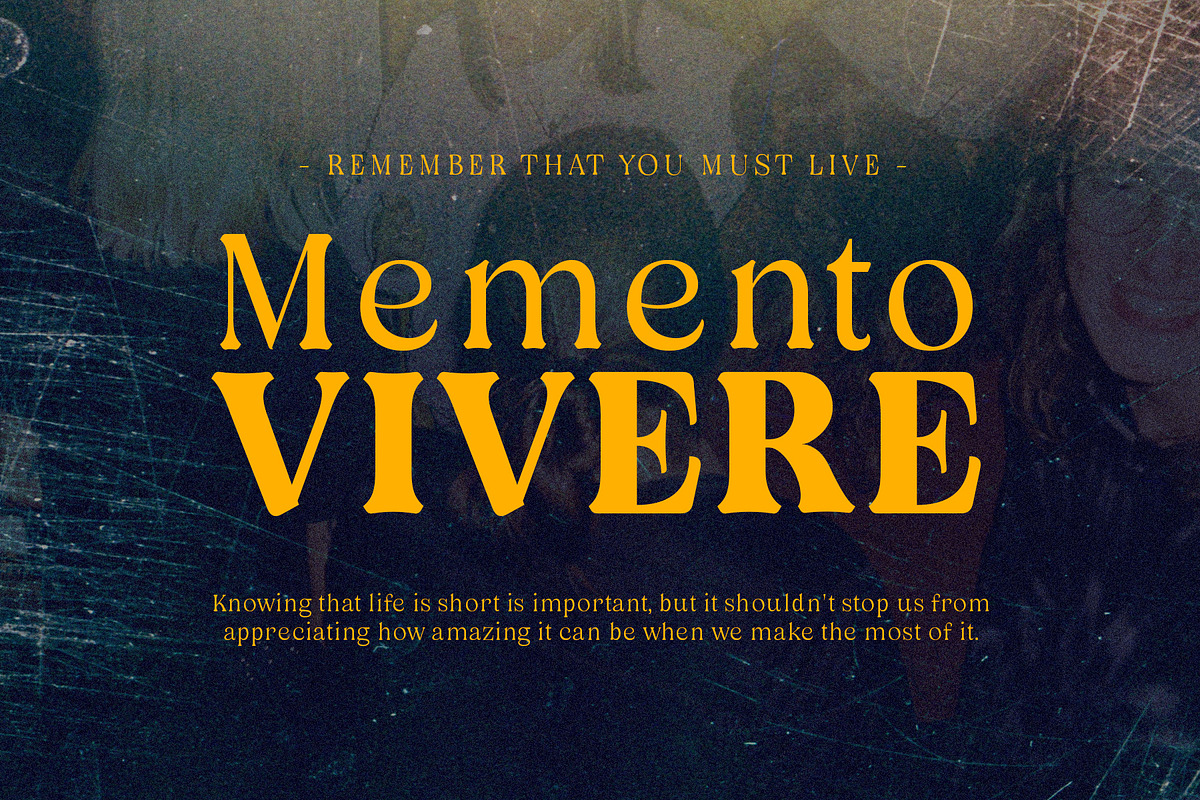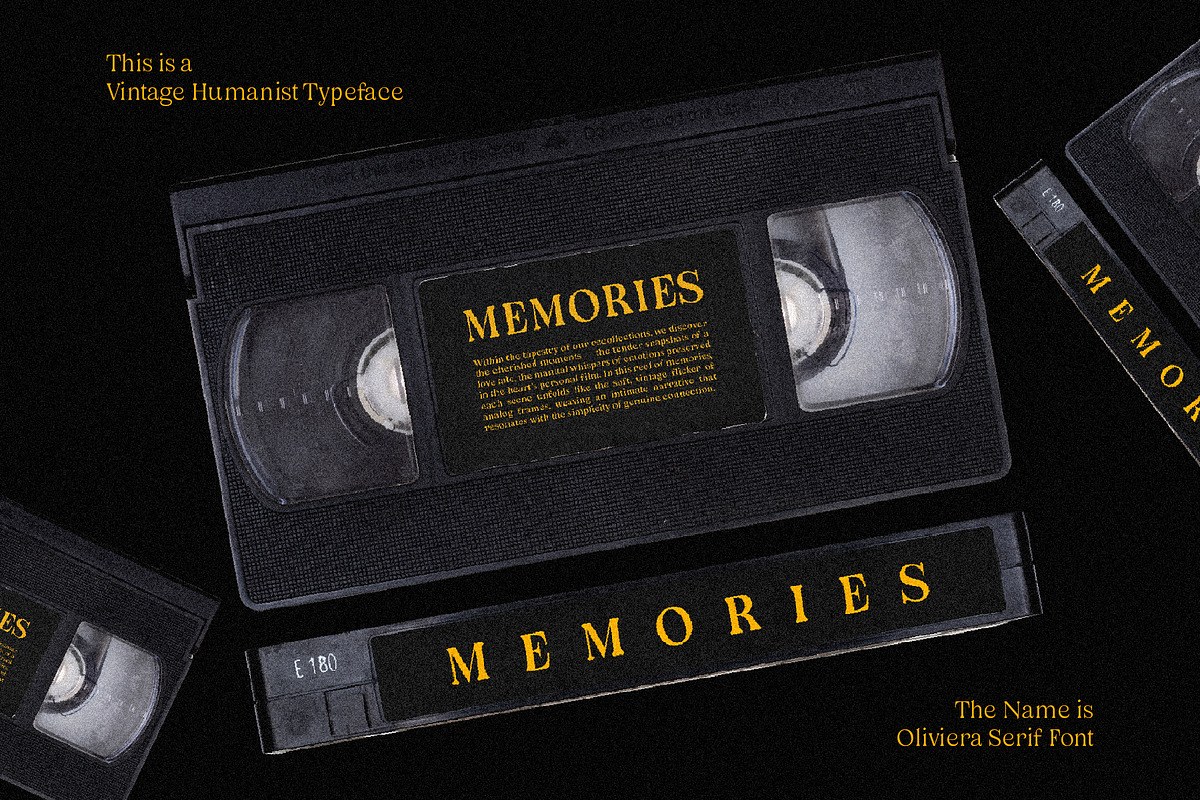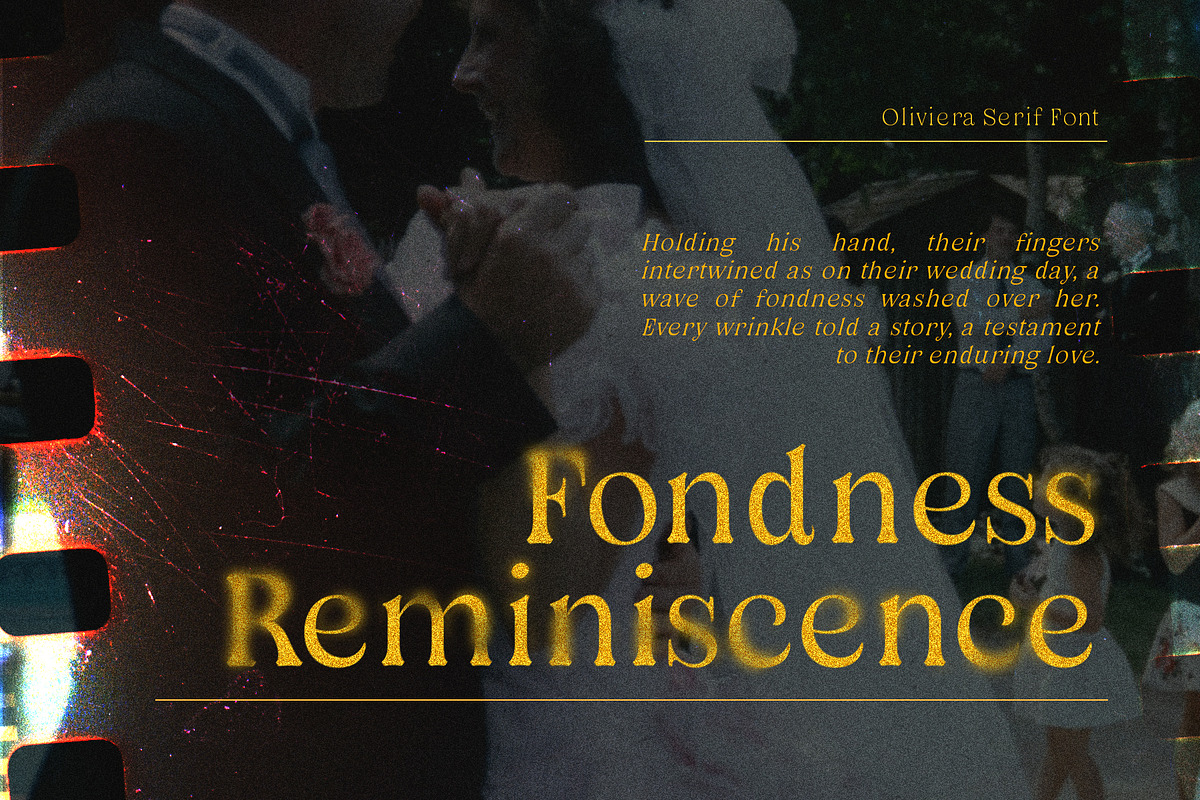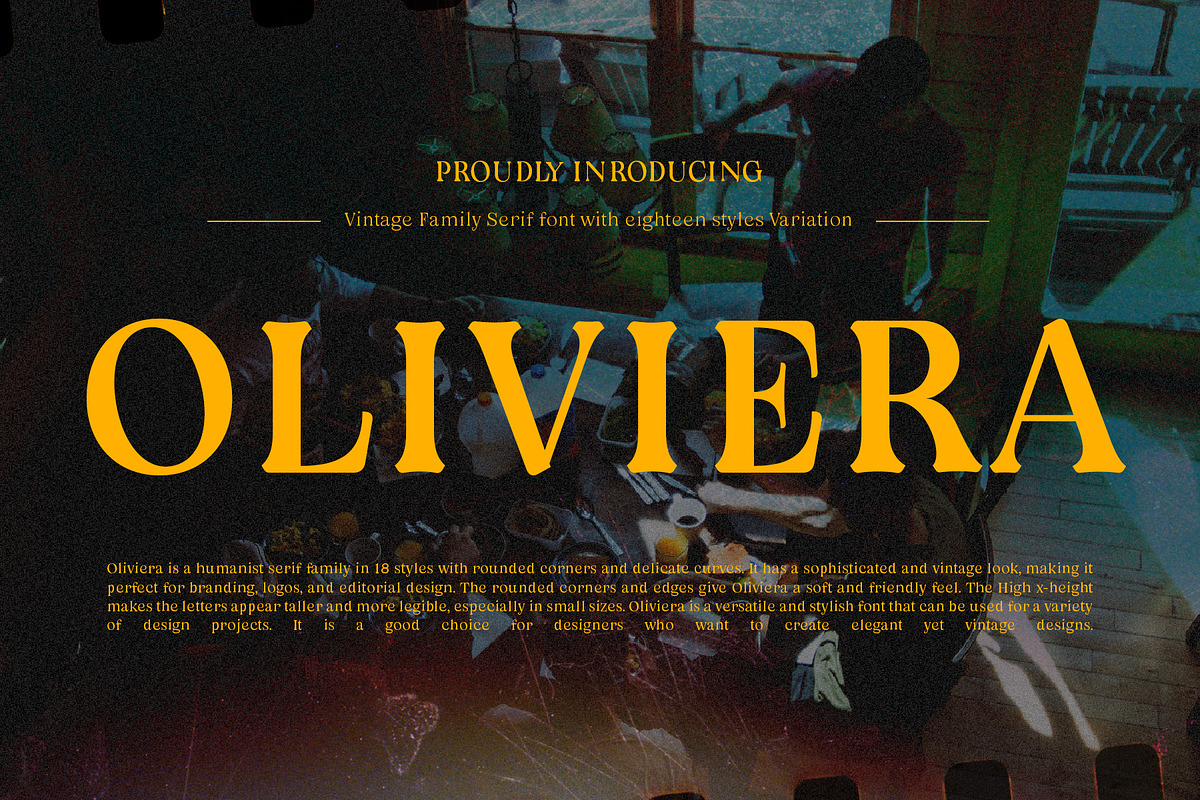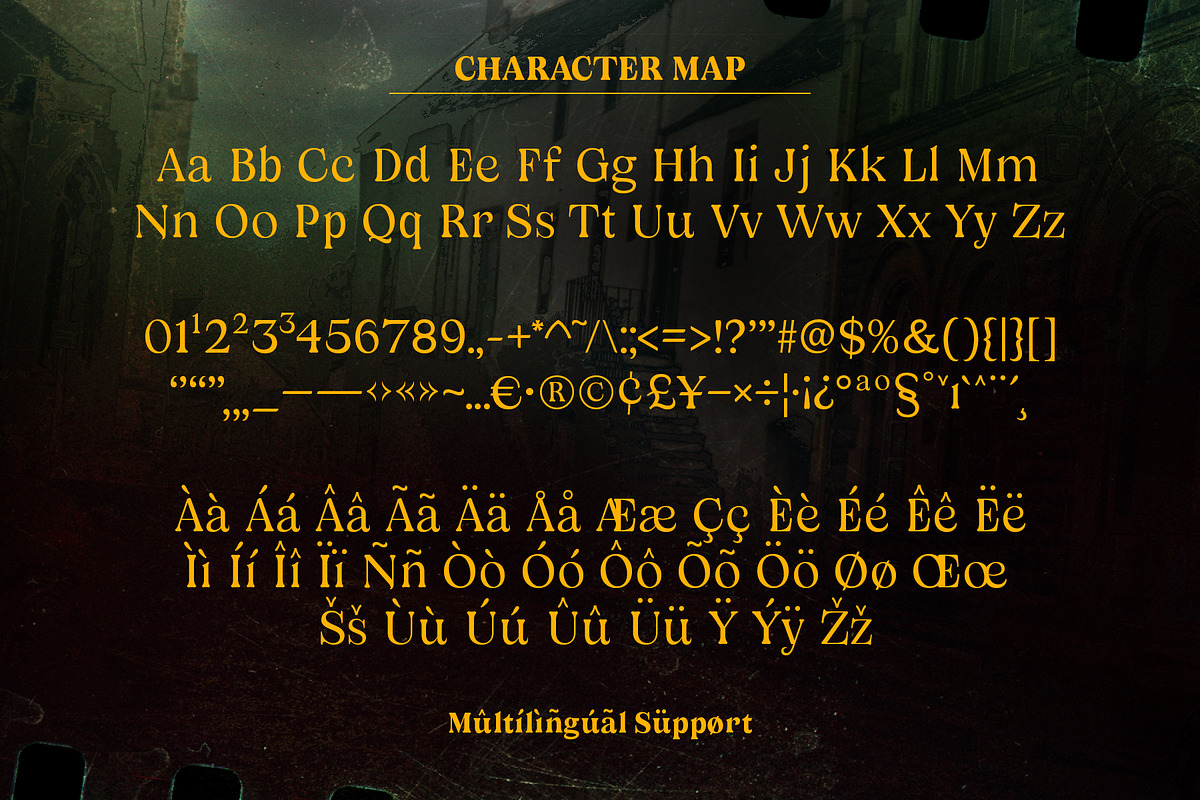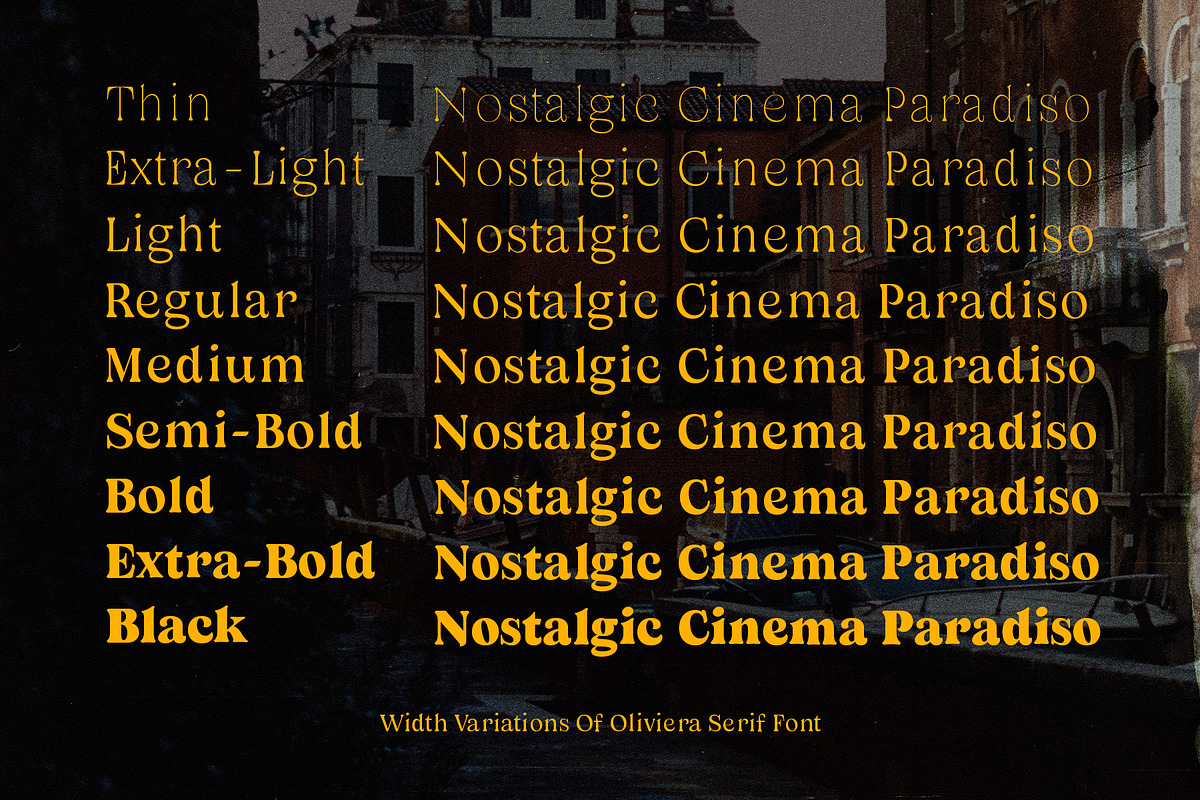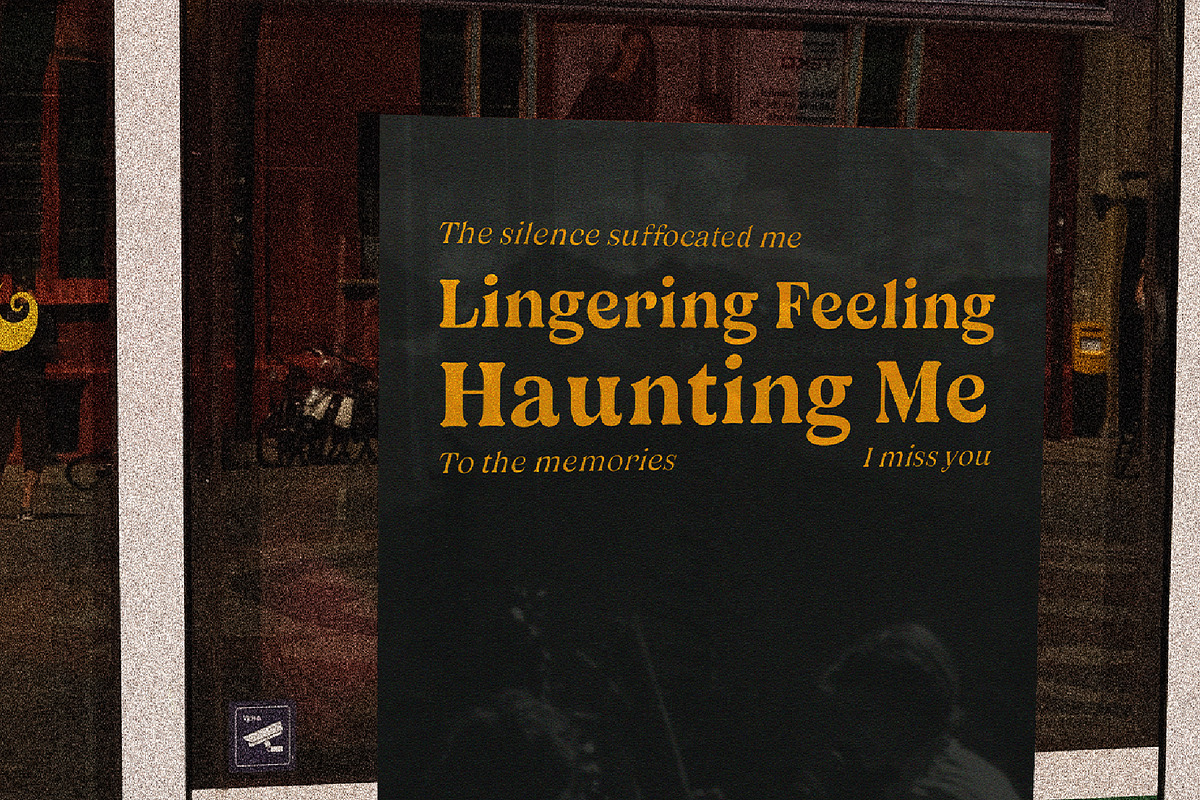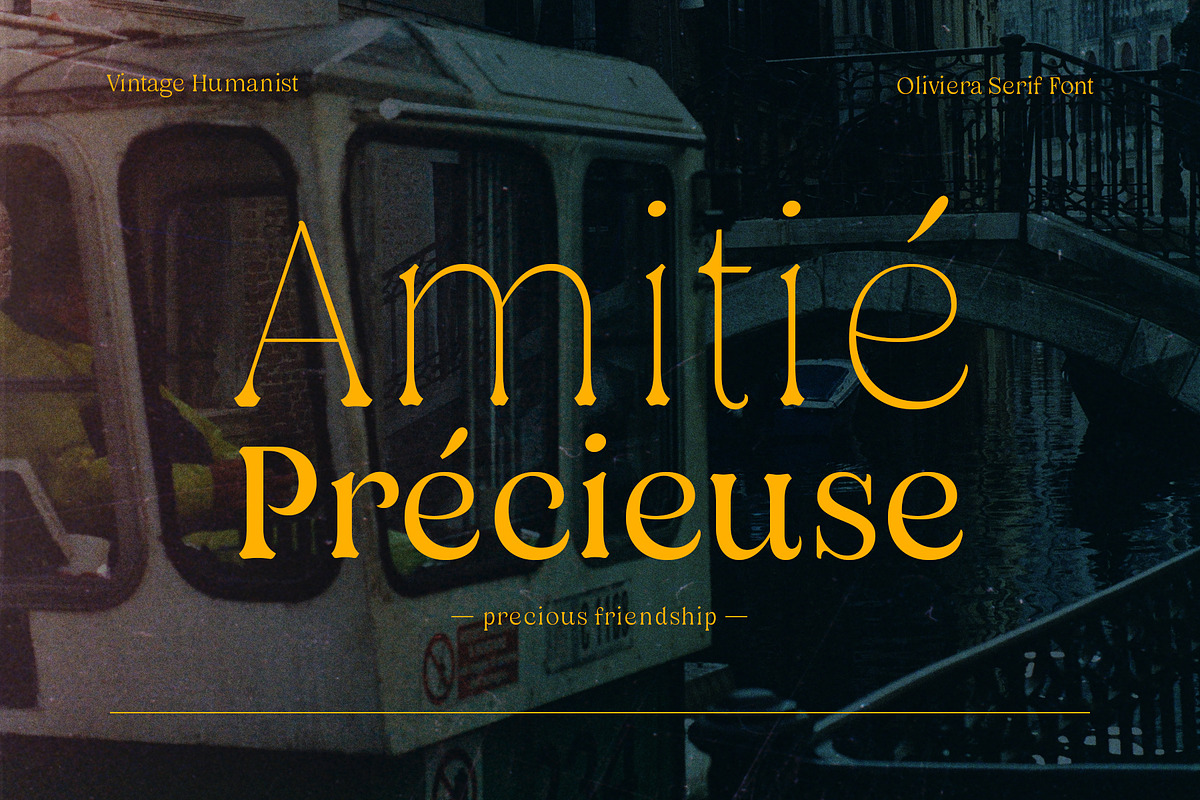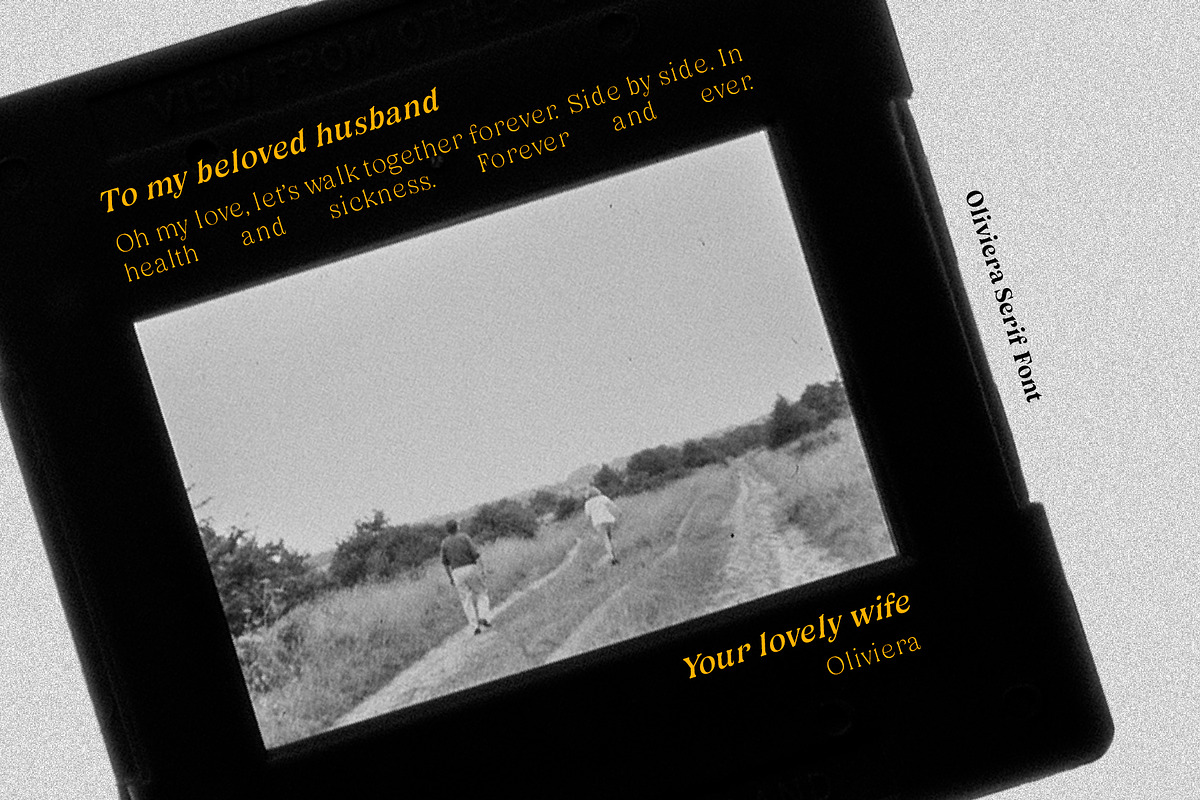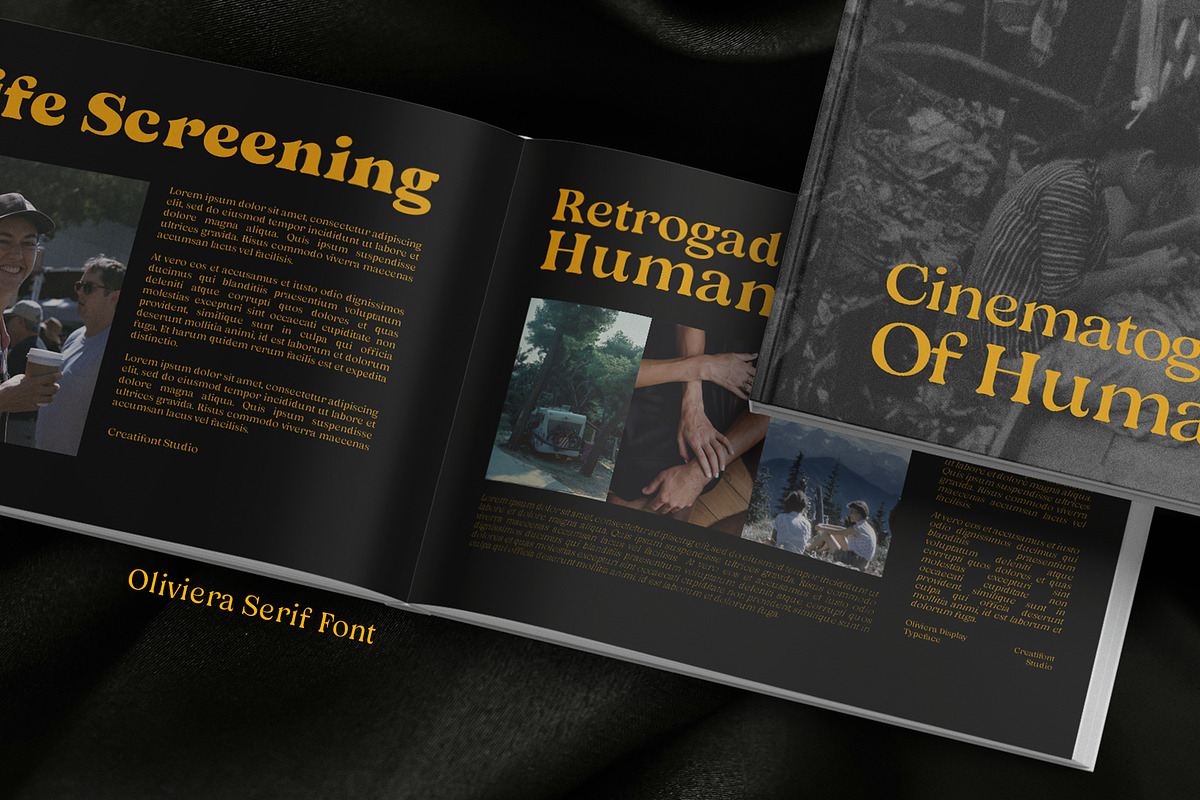
CF Oliviera - Elegant Vintage Serif
Oliviera - is a humanist serif family in 18 styles with rounded corners and delicate curves. It has a sophisticated and vintage look, making it perfect for branding, logos, and editorial design. The rounded corners and edges give Oliviera a soft and friendly feel. The High x-height makes the letters appear taller and more legible, especially in small sizes. Oliviera is a versatile and stylish font that can be used for a variety of design projects. It is a good choice for designers who want to create elegant yet vintage designs.